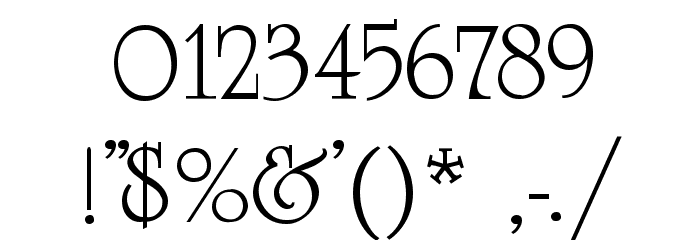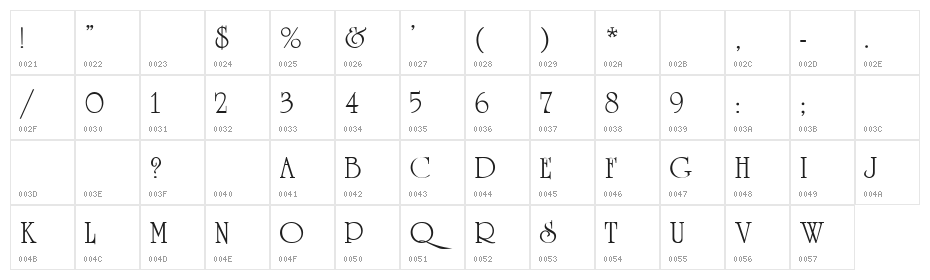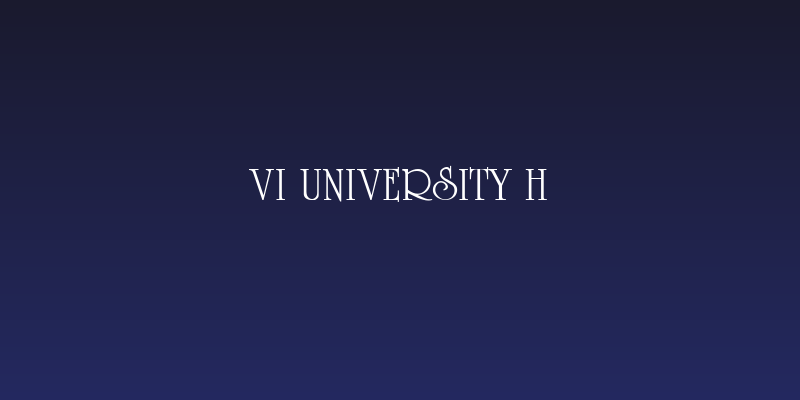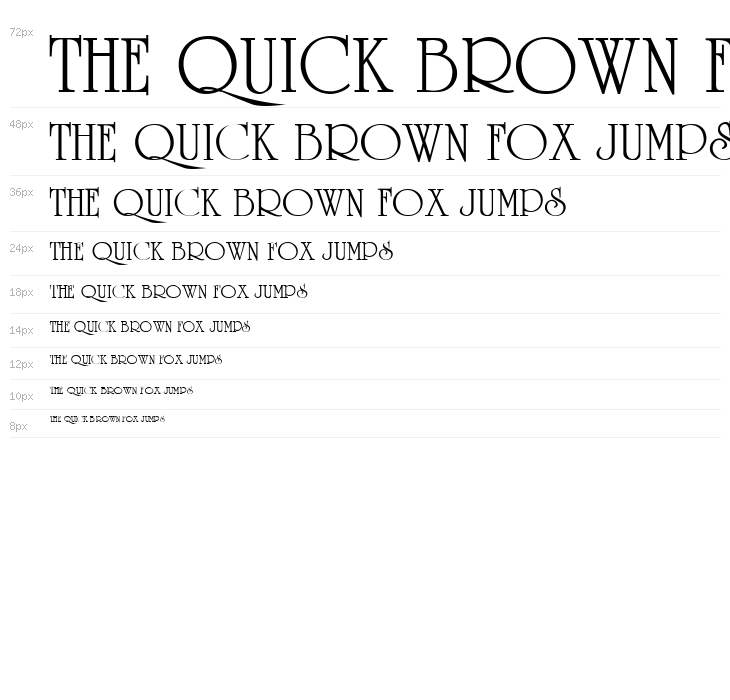
VI University H Font
VI University H Description
This font features a classic serif style with elegant, elongated lines and subtle curves, giving it a sophisticated and traditional appearance. The uppercase letters are distinct with sharp serifs and a slight contrast in stroke weight, which adds to its readability and aesthetic appeal. The numerals are well-proportioned, maintaining the font's overall elegance. Special characters are designed with the same attention to detail, ensuring consistency across all glyphs. The font's design is reminiscent of traditional typography, making it suitable for formal and academic settings.
| Proposed Projects | Ideal for use in academic publications, formal invitations, book covers, and branding materials that require a touch of elegance and tradition. |